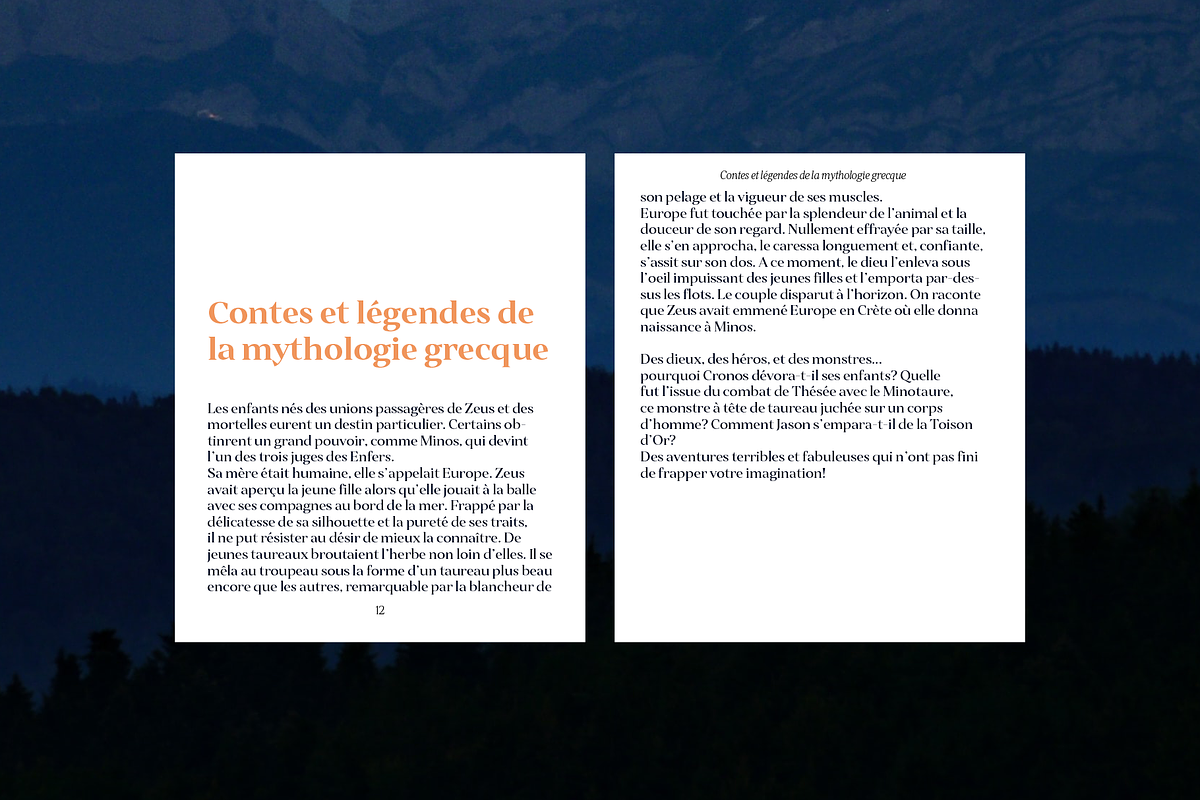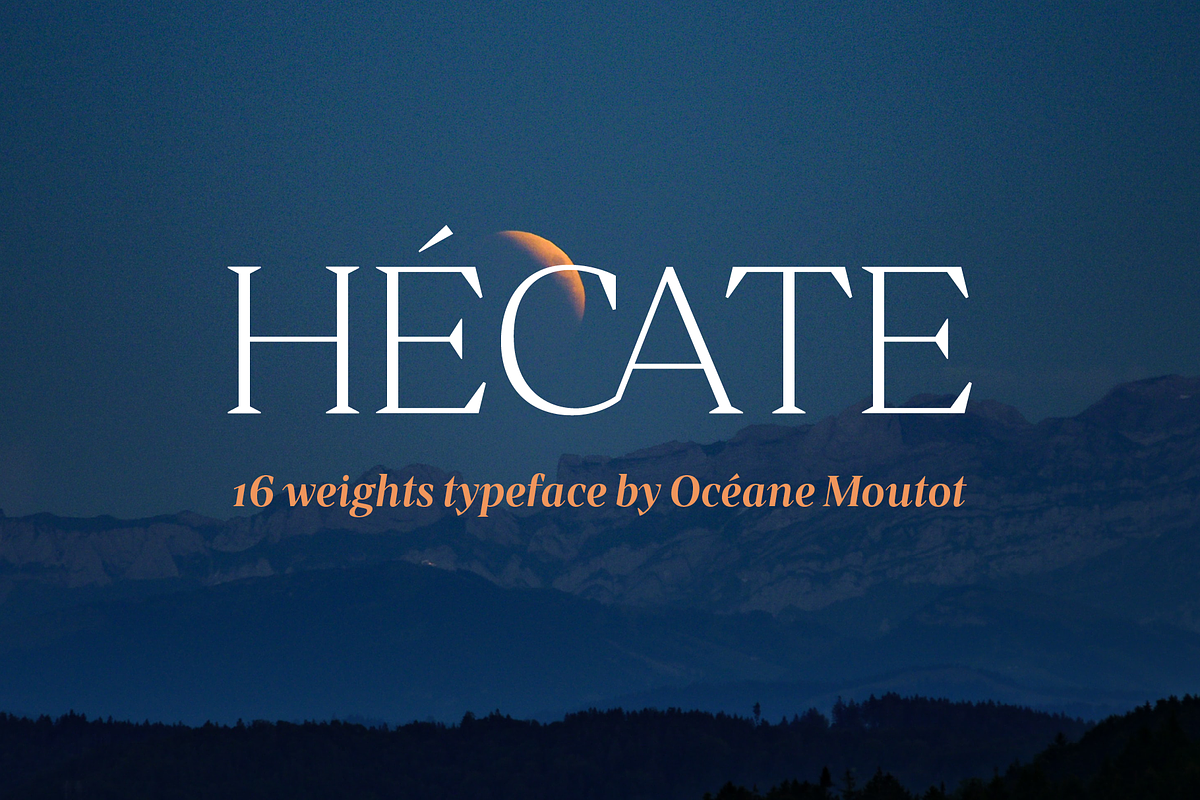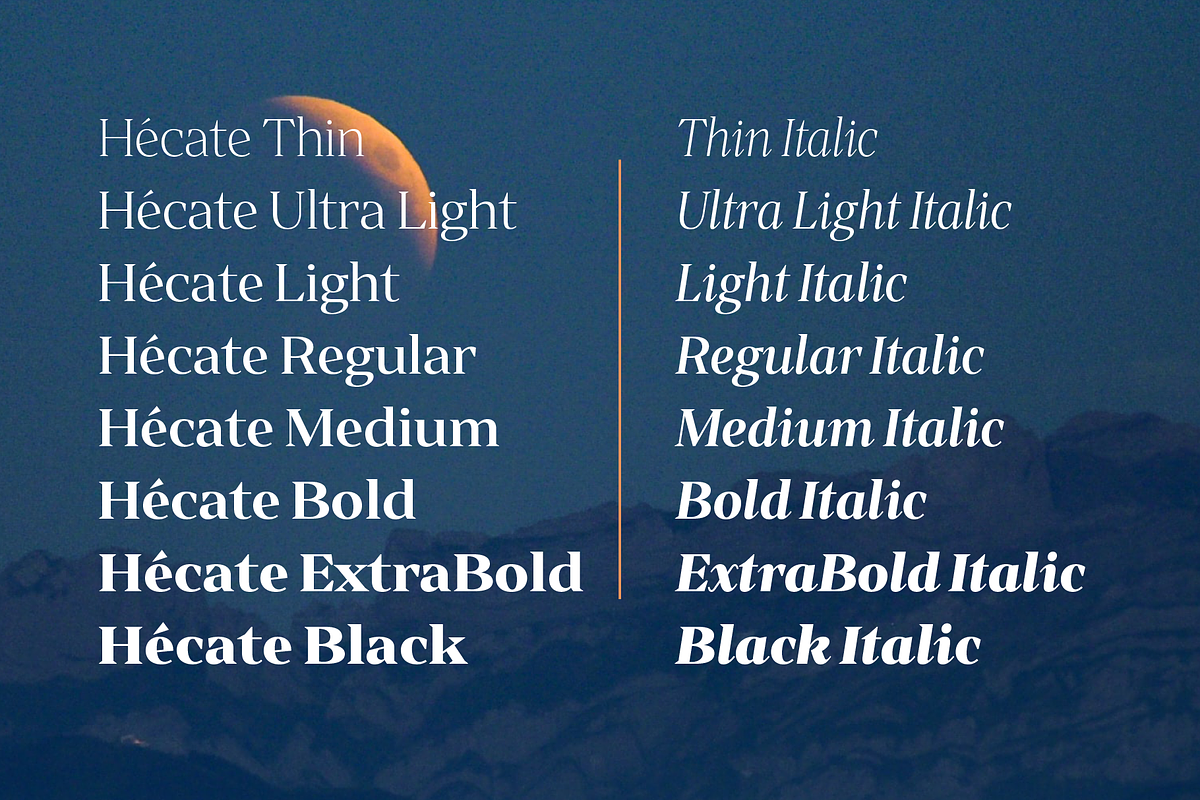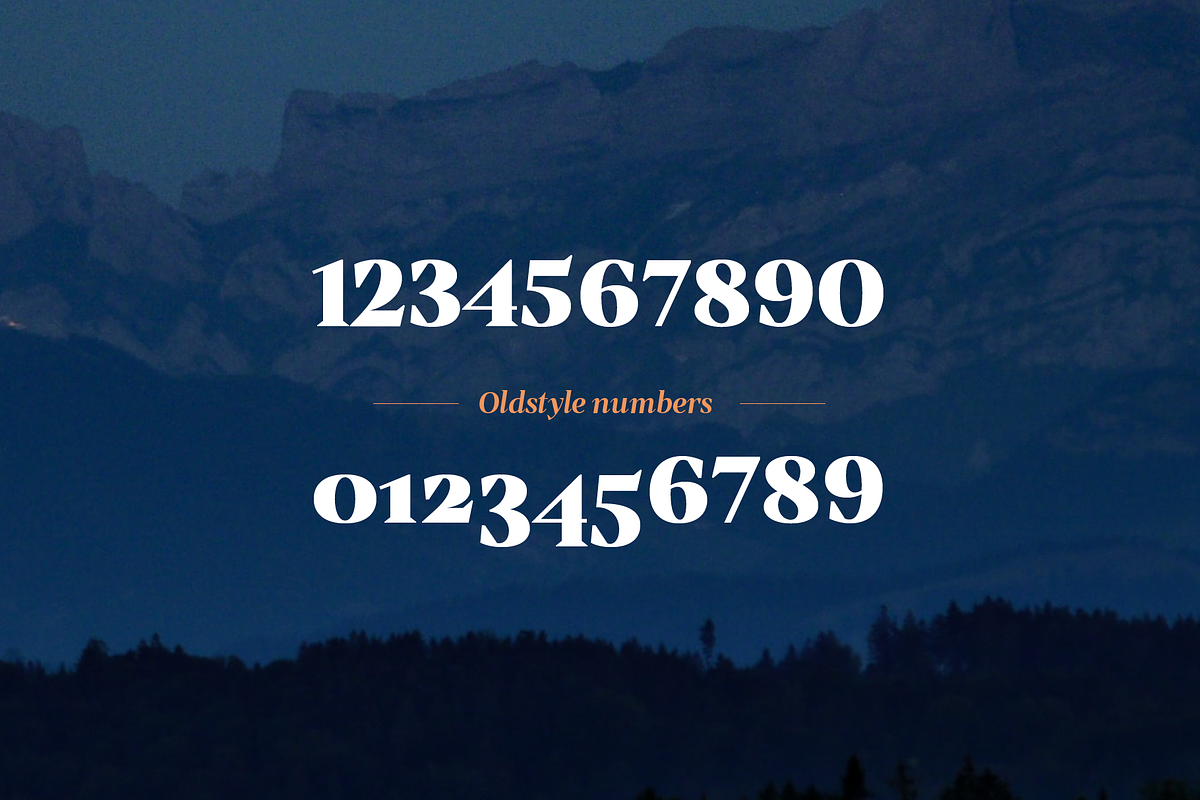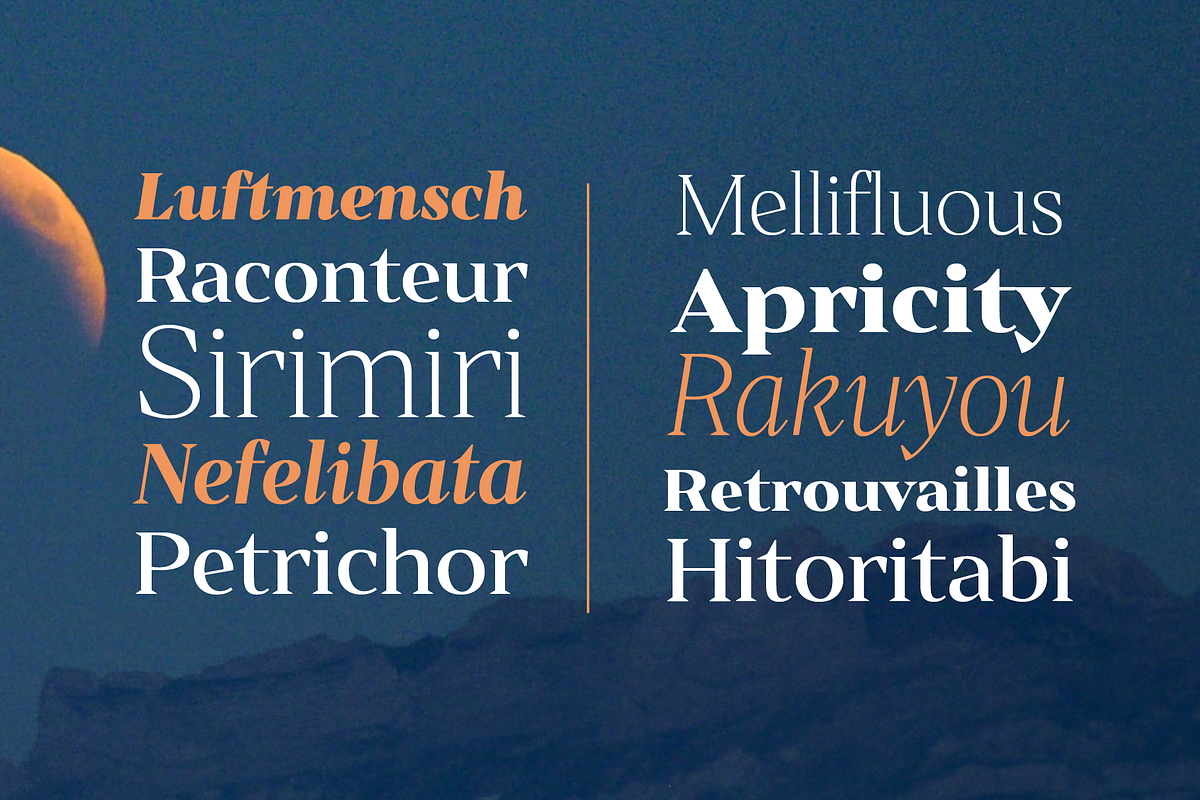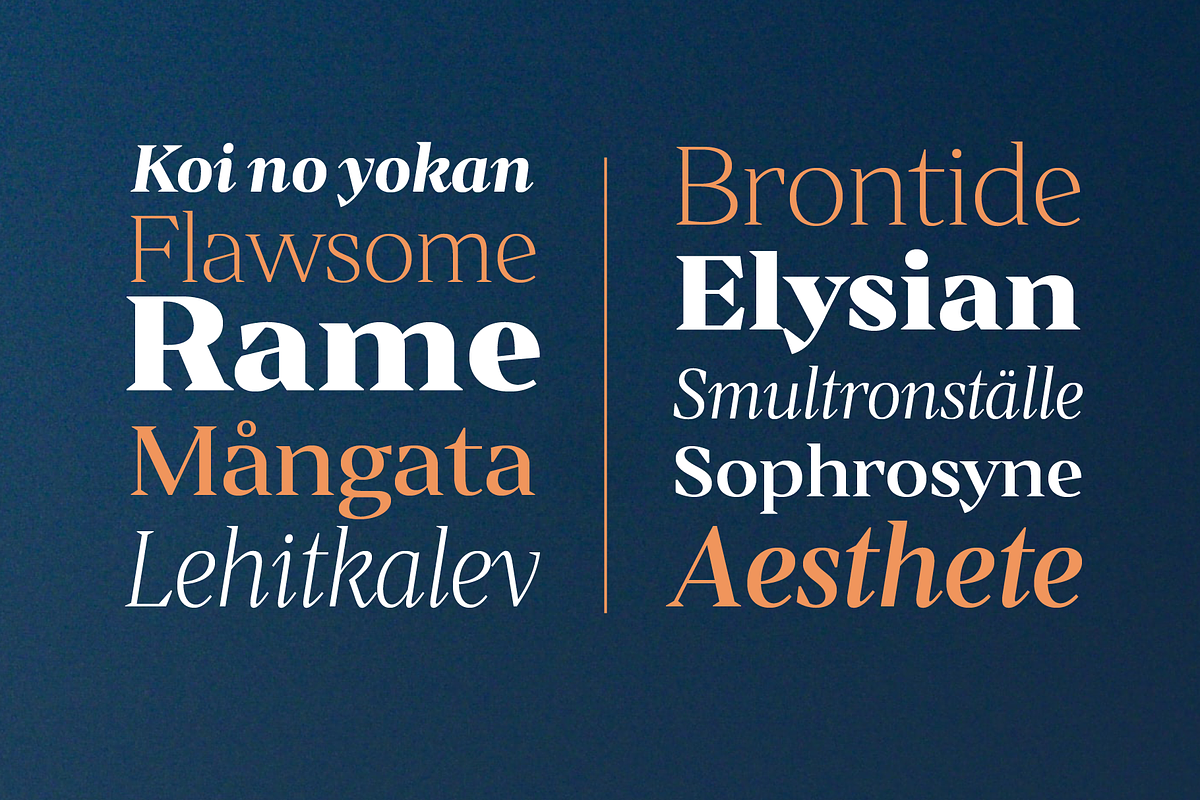
Hécate
Hécate is a contemporary serif typeface designed with sharp serifs, smooth and dynamic lines and high contrast. Inspired by the Garalde style with its tilted axis, Hécate brings uniqueness and modernity to this more traditional style. Its large variety of glyphs, including accents, old-style numbers, ligatures, ... will give you freedom for all of your projects. It offers a large choice of uses such as magazine, branding, edition and so on. Hécate is available in 16 styles from thin to black, in roman and italic.